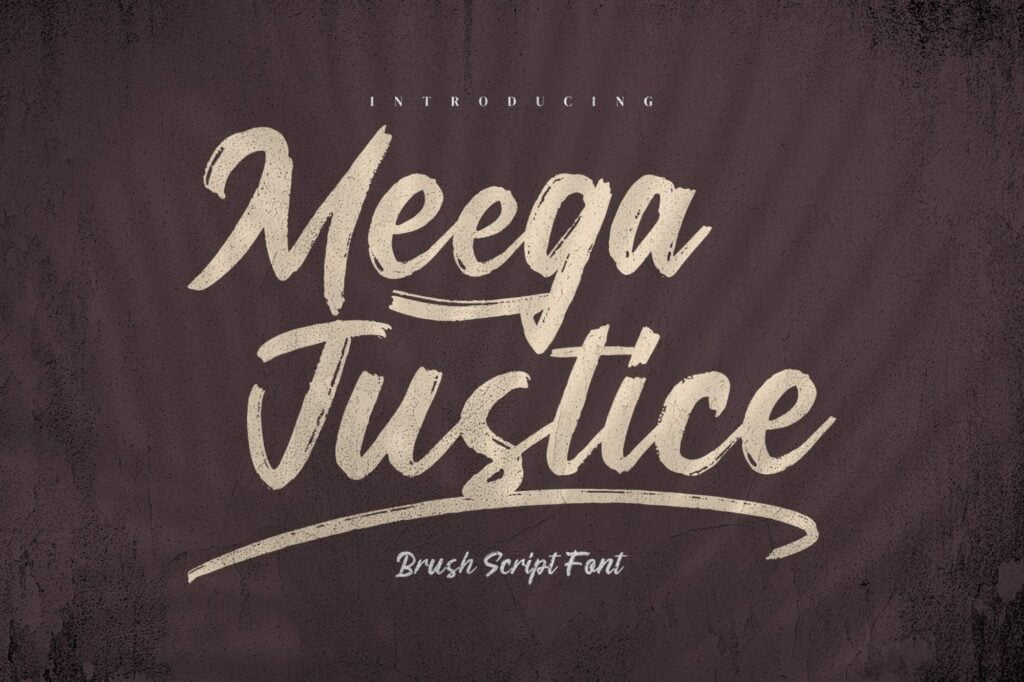
Meega Juctice Font
Meega Juctice is an enchanting brush font. This versatile script font has a wide spectrum of applications ranging from greeting cards to headlines and is guaranteed to add a romantic feel to your next project.
Meega Juctice Brush Script Font